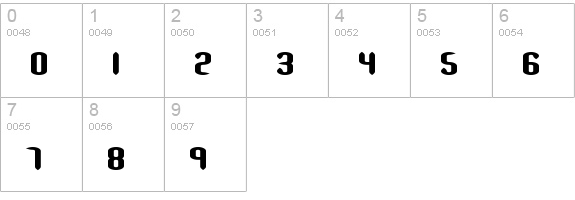
Slender Stubby BRK Font Details
Slender Stubby BRK font is a unique and stylish typeface that effortlessly combines elegance with a touch of playfulness. Its slender and stubby design creates a distinctive look that will make your text stand out in any project. This font is perfect for a wide range of creative projects, such as logo designs, branding materials, advertisements, posters, and more. Its clean and modern appearance makes it suitable for both professional and personal use. One of the best things about Slender Stubby BRK font is that it is free! Yes, you read that right. This stunning font is freely available to download at FontsMarket.com. You can easily access and enjoy this font without any cost, making it an excellent choice for those who are looking for high-quality fonts without breaking the bank. With its smooth curves and defined edges, Slender Stubby BRK font offers excellent legibility, ensuring that your message is conveyed clearly and effectively. Its versatile nature allows it to adapt to various design styles, making it a versatile addition to your font library. Whether you're a professional designer or someone who simply appreciates beautiful typography, Slender Stubby BRK font is a must-have. Its sleek and eye-catching appearance will captivate your audience, leaving a lasting impression. So don't hesitate! Discover the elegance and versatility of Slender Stubby BRK font today by downloading it for free at FontsMarket.com. Elevate your designs and make a statement with this exceptional font.